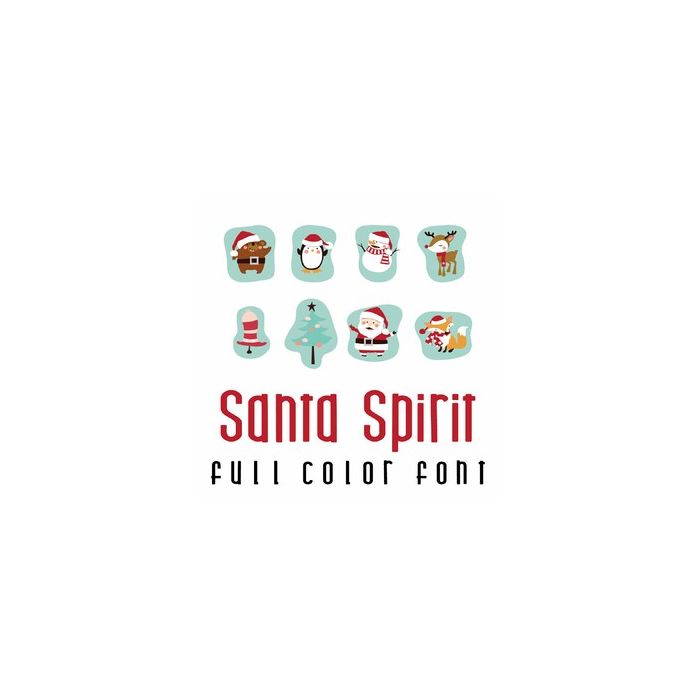
This adorable full color doodlebat font features adorable Santas and animals in Santa spirit wear. Perfect for cards, crafts, gifts, decor, scrap book pages, planner stickers and more!